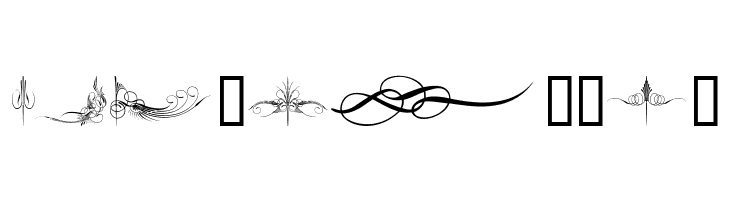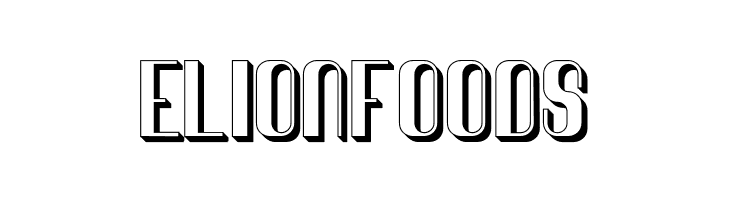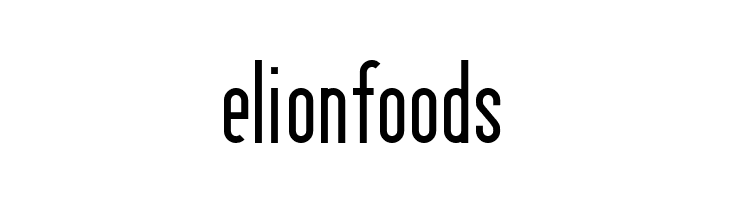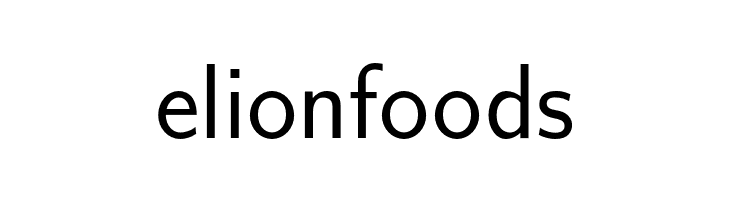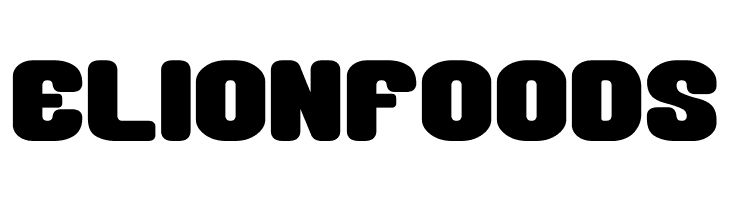
( Fonts by www.houseoflime.com )
A bold, geometric stencil font with an industrial and modern aesthetic.
( Fonts by www.houseoflime.com )
An ornate Art Nouveau font with intricate curves and floral motifs.
( Fonts by www.junkohanhero.com )
A bold, distressed font with a cut-out, ransom note style.
( Fonts by Peter Wiegel - www.peter-wiegel.de )
A bold, 3D font with a modern, playful aesthetic and distinct shadow effects.
( Fonts by Peter Wiegel - www.peter-wiegel.de )
A tall, narrow, and modern font with clean lines and a sleek aesthetic.
( Fonts by www.gust.org.pl )
A modern, clean sans-serif font with excellent readability and balanced design.
( Fonts by Goma Shin - Shintarou Nakayama www.geocities.jp/gomarice_font/ )
A bold, rounded font with a playful and modern style.